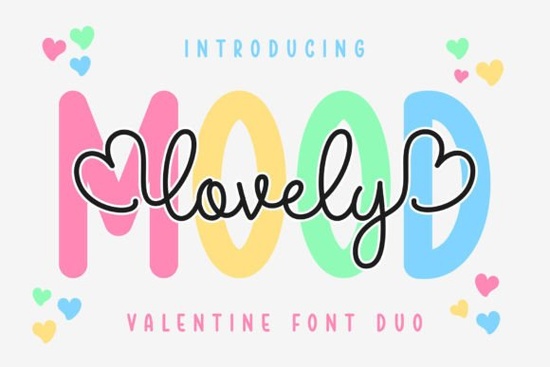
If you're looking for a friendly, romantic font duo that works well for Valentine’s Day designs and carries that warmth into everyday projects the Lovely Mood Duo Font is a thoughtful choice. It pairs a smooth script monoline with a clean sans-serif display font, giving you flexibility without sacrificing charm. Unlike overly ornate scripts or stiff sans fonts used alone, this duo balances personality and readability ideal for greeting cards, mugs, wall art, or digital social posts aimed at heartfelt moments.
What makes Lovely Mood different from other script + sans combos?
First, it’s designed with intention not just aesthetics. The script feels relaxed and handwritten (but consistent), while the sans is friendly and rounded, not cold or technical. That contrast works especially well for quotes, product labels, or small-batch packaging where you want warmth and clarity.
It’s also PUA encoded, meaning all alternate glyphs, swashes, and ligatures show up reliably in design apps like Adobe Illustrator, Affinity Designer, or even Canva (when uploaded as OTF/TTF). No hunting through character maps or guessing which key does what you get intuitive access to stylistic options right from your keyboard.
When does Lovely Mood shine best?
This font duo fits naturally into projects where softness and sincerity matter:
- Valentine’s Day cards, stickers, and printable gift tags
- Wedding or engagement announcements (especially for modern, low-key celebrations)
- Small business branding for bakeries, florists, or wellness studios
- Print-on-demand items like tote bags, journals, or ceramic mugs with gentle messaging
- Instagram story text overlays or Pinterest quote graphics
It’s not built for high-contrast headlines or corporate reports but that’s okay. Its strength lies in human-scale communication: the kind that says “I made this for you” rather than “This was generated.”
How does it compare to other popular Creative Fabrica script fonts?
If you already use Charlie Script Font, you’ll notice Lovely Mood has a lighter touch less formal, more breezy. Where Charlie leans elegant and structured, Lovely Mood leans cozy and approachable.
Compared to Straight Font, which prioritizes clean geometry and minimal curves, Lovely Mood embraces subtle variation in stroke width and rhythm. It feels more hand-drawn, less engineered.
For those who love rustic charm, Family Farmhouse Font brings farmhouse warmth with thicker strokes and vintage texture Lovely Mood is smoother and more contemporary, better suited for minimalist layouts or pastel palettes.
And unlike Partly Notes Font, which includes musical motifs and playful flourishes, Lovely Mood keeps its focus on emotional tone not thematic decoration. It’s versatile across seasons, not tied to one visual trope.
Even next to something expressive like Splashed Font, Lovely Mood holds its own by offering restraint: fewer dramatic splatters, more quiet confidence in its pairing.
Who’s using Lovely Mood right now?
We’ve seen crafters use it for hand-lettered-style SVG cut files (Cricut, Silhouette), especially when layering script phrases over solid-color backgrounds. Print-on-demand sellers report strong performance on Etsy for “self-care” or “you’re loved” themed apparel particularly on blush, sage, or oatmeal-colored tees.
Small studios creating custom stationery often pair Lovely Mood’s script for names or quotes, then switch to the sans for dates, locations, or fine print. That combo avoids visual fatigue and keeps hierarchy clear even at small sizes.
One note: because the script is monoline (no thick/thin contrast), it scales well down to 14–16pt in print or screen. That’s helpful if you’re designing for physical products where legibility matters at a glance.
A quick practical tip before downloading
Try typing a short phrase like “You’re my person” in both fonts side-by-side. Adjust letter spacing in the sans to match the airiness of the script not too tight, not too loose. Then test how it looks at three sizes: large (for headers), medium (social posts), and small (product tags). If it reads easily across all three, you’ve got a solid pairing.
If you’d like to see how Lovely Mood Duo Font looks in real projects, browse recent uploads on Creative Fabrica tagged #valentinesfonts or #romanticfonts you’ll find plenty of user-made mockups showing it in action on mugs, stickers, and digital planners.
- Preview the swash options in the product gallery some are subtle, others add flair to initials or endings
- Remember it’s a duo: use both fonts together for best results, not just the script alone
- Test print a sample phrase on your intended paper or material light ink on textured stock can soften the monoline effect